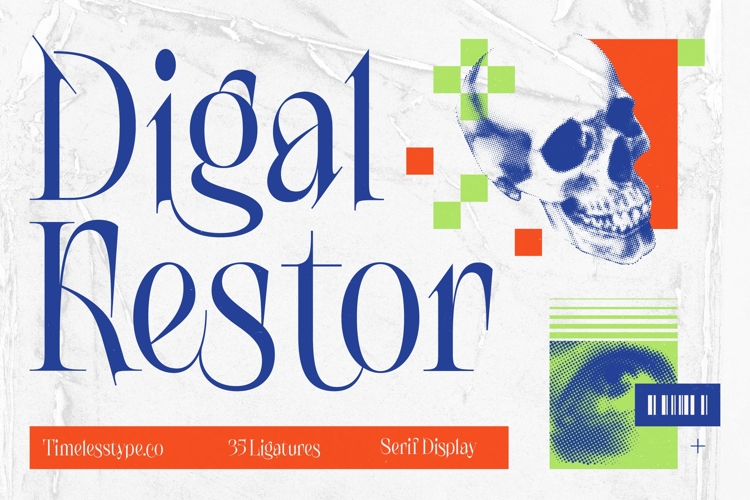
Digal Kestor - Serif Display Font
Elevate your creative vision with the unparalleled elegance of Digal Kestor - Serif Display Font, a typeface that defines modern luxury. This high-contrast masterpiece combines sharp serifs with delicate hairlines, creating a sophisticated aesthetic that demands immediate attention. Whether you are crafting a premium brand identity or a sleek editorial layout, this font offers the perfect balance of classical roots and contemporary flair.
Unlock limitless creative potential with the 35 bespoke ligatures that give Digal Kestor - Serif Display Font its distinctive, hand-crafted character. These expertly designed alternates allow designers to create unique typographic compositions that feel custom-made for every project. By integrating bold visual structures with artistic fluidity, this typeface serves as a versatile powerhouse for anyone seeking to establish a dominant visual presence in a crowded marketplace.